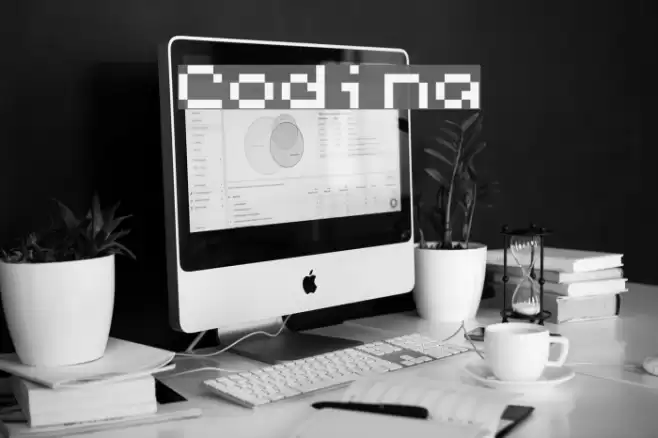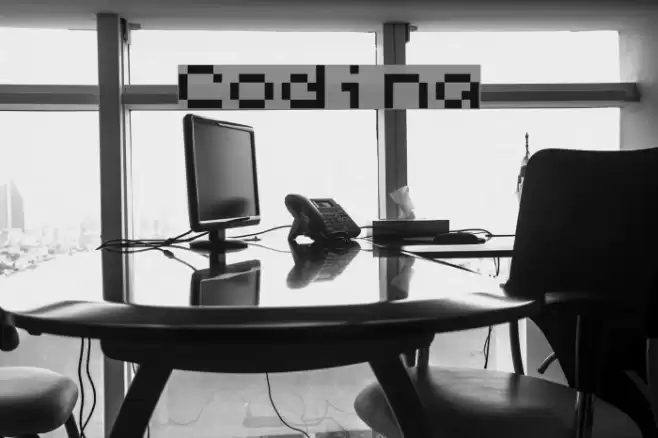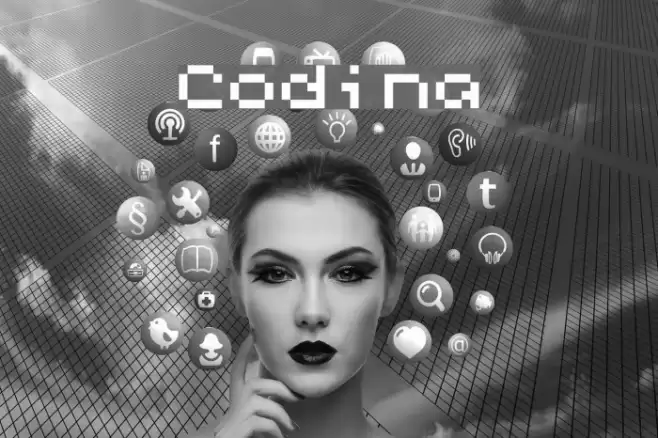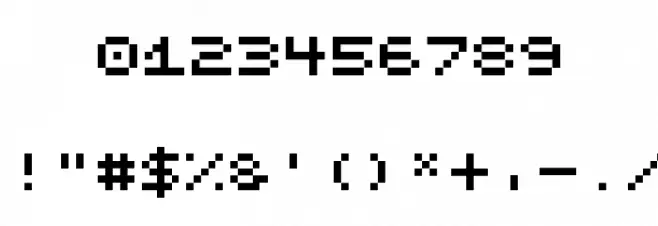
Codina Font
Codina Description
This font features a pixelated, blocky design reminiscent of early digital displays and retro video games. Each character is constructed with a uniform grid-like pattern, giving it a distinctly digital and geometric appearance. The uppercase and lowercase letters maintain a consistent height, contributing to a cohesive and structured look. The numerals and special characters follow the same pixelated style, ensuring visual harmony across all elements. This font's nostalgic aesthetic is ideal for projects that aim to evoke a sense of vintage technology or classic gaming.
A pixelated, retro-style font with a digital, blocky appearance from Uncategorized fonts.
- Proposed Projects: Ideal for retro video game designs, digital art projects, tech-themed posters, and nostalgic branding.
- Overall Style: Vintage